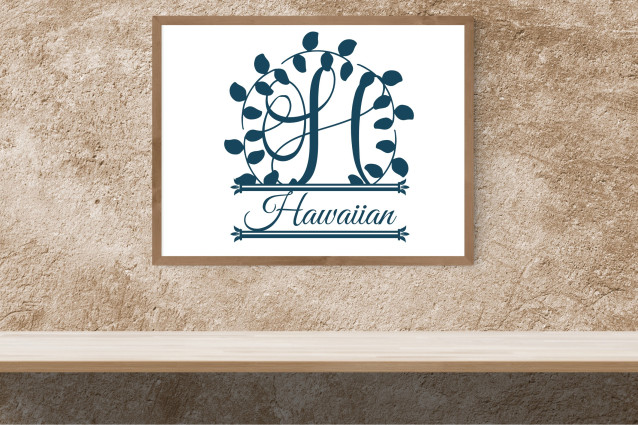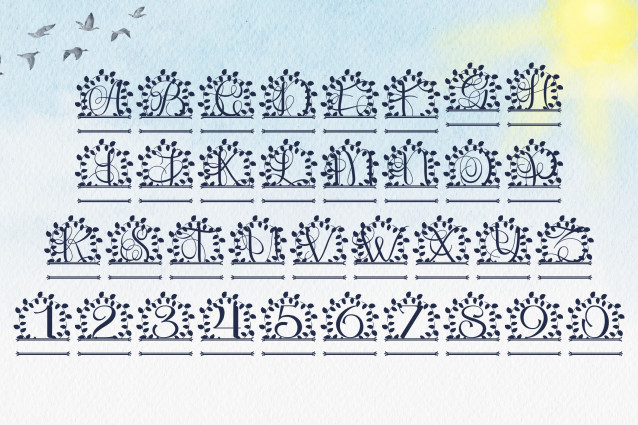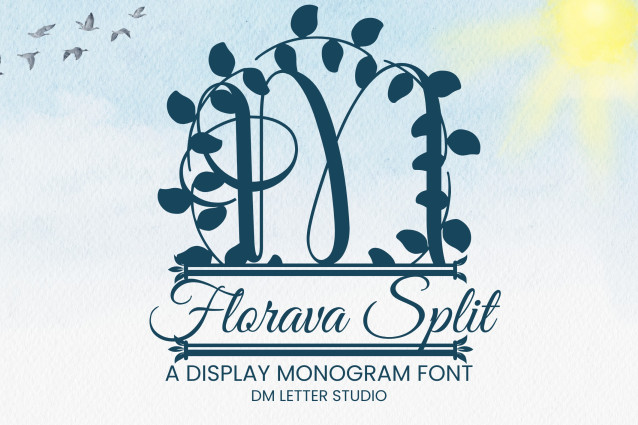
Florava Split Monogram Font
Florava Split Monogram Font is an elegant serif monogram font with flowing floral details and a clean split design for personalization. Each uppercase letter is enhanced with graceful botanical flourishes and a centered horizontal gap—perfect for inserting names, dates, or special messages. Designed for wedding stationery, branding, packaging, and personalized crafts, this font brings a romantic and nature-inspired touch to your creative projects.